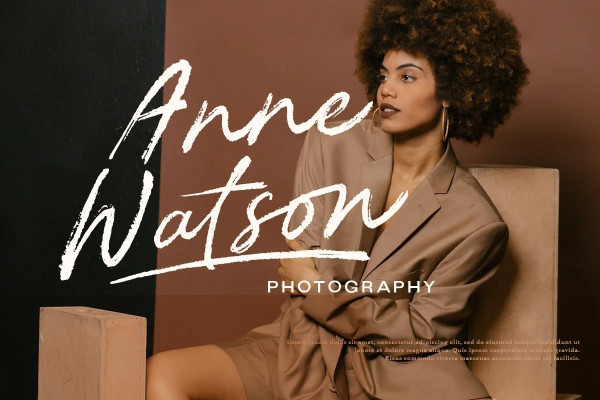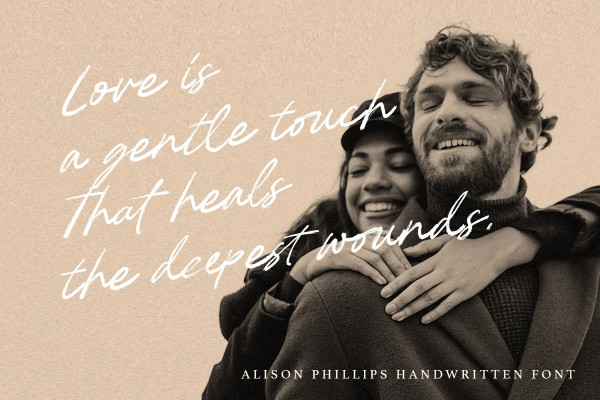
Alison Phillips Font
Alison Phillips Font, a Casual handwritten font designed to bring a touch of authenticity and personal flair to your projects. With its textured brush look, this font exudes an organic and intimate feel, allowing your designs to evoke a sense of uniqueness and character.